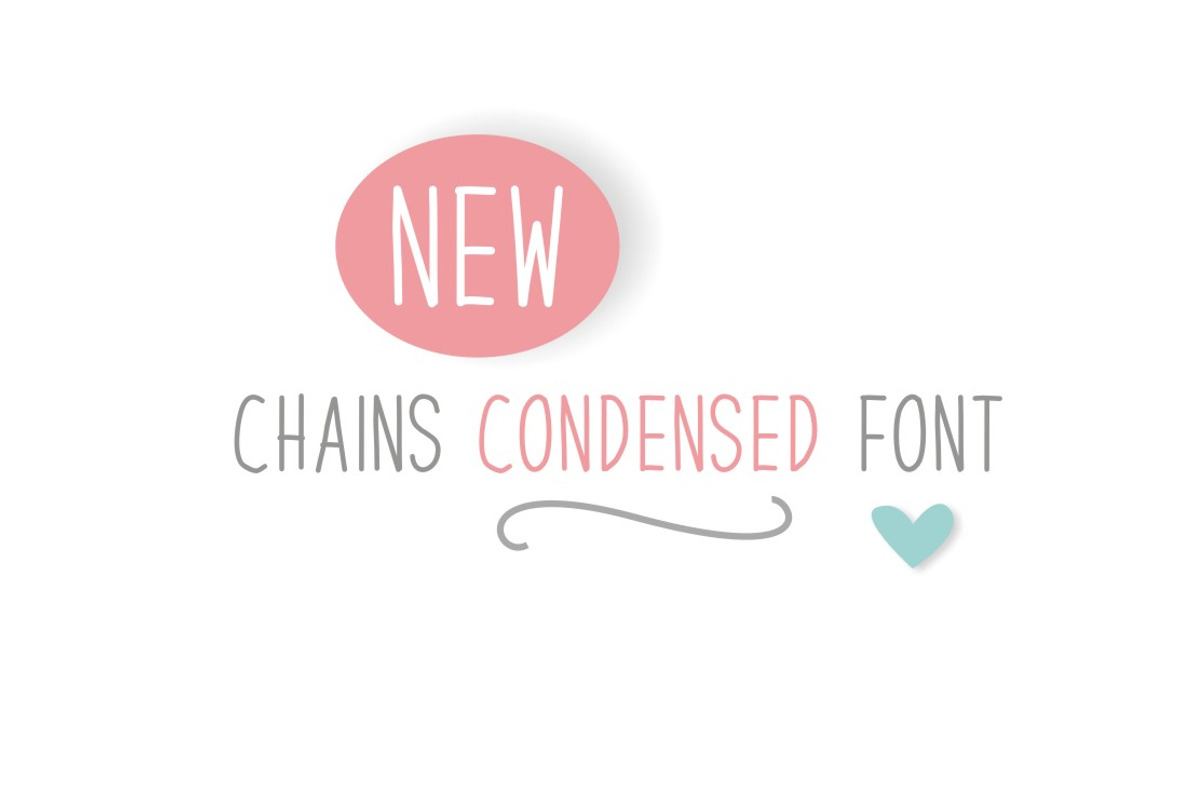
Chains Condensed Free Download
Chains Condensed Font Free Download
The Chains Condensed Font Free Download is a sleek and modern typeface designed to make a bold statement in any design project. Its condensed form and sharp lines give it a clean, sophisticated look, making it perfect for logos, headlines, posters, and much more. Whether you're designing for print or digital platforms, this font brings a touch of elegance and style to any creative endeavor.
With its strong presence and professional appearance, the Chains Condensed Font Free Download is ideal for any project that needs to make an impact. Its clear, legible design works perfectly for both large and small text, ensuring your message stands out. From branding and advertisements to web design and social media content, this font can be used in a variety of applications.
Chains Condensed Font is perfect for designers seeking a modern, versatile typeface that blends elegance with boldness. Its condensed design allows for efficient use of space, making it a great choice for designs where space is limited, but you still want to make a strong visual impression.